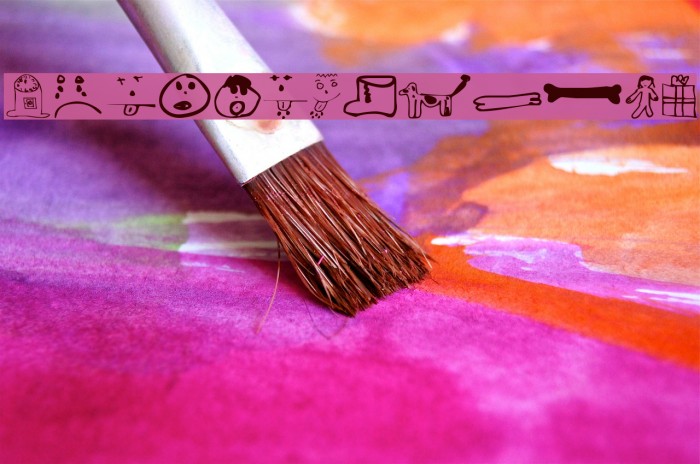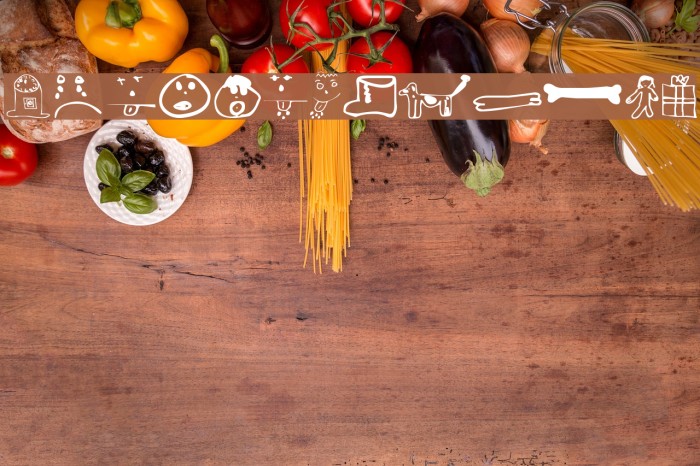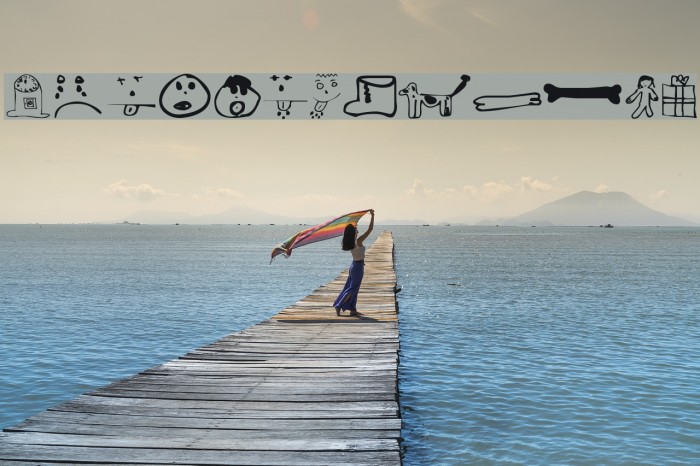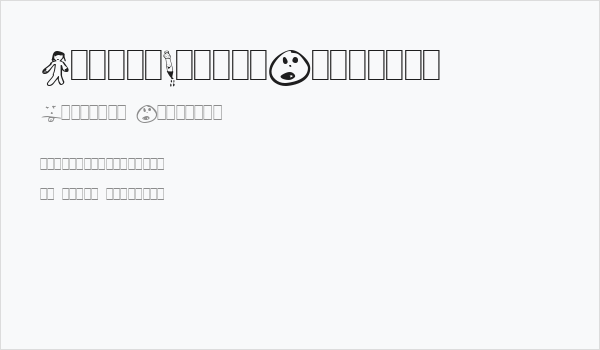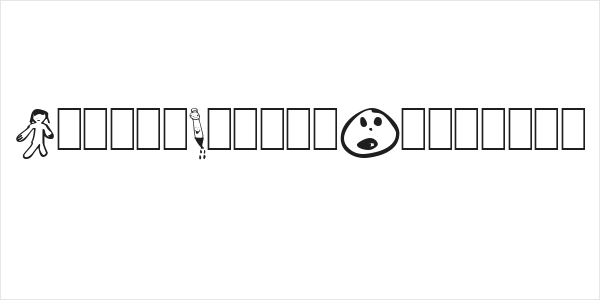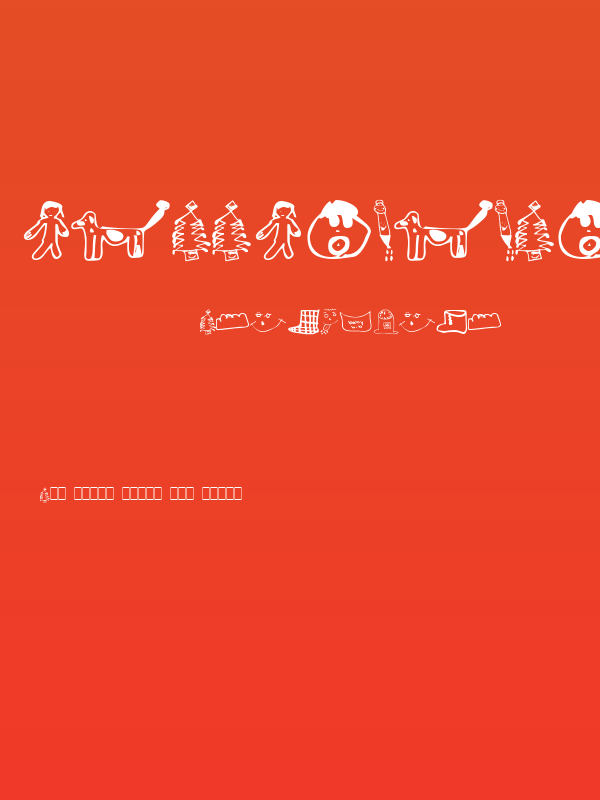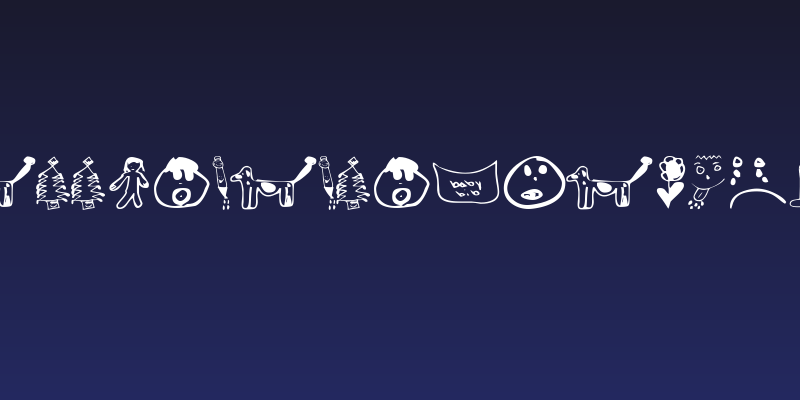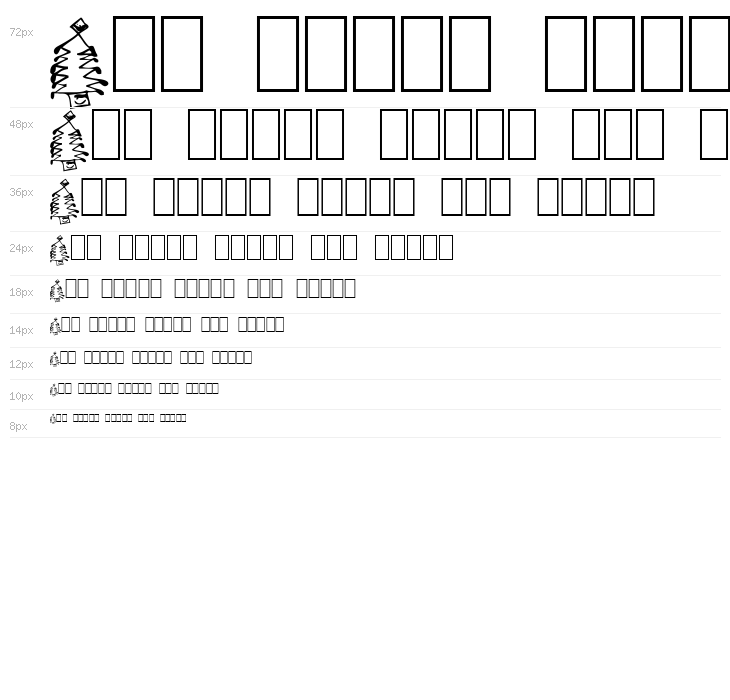
LittleSisterDingbats Font
LittleSisterDingbats Description
This collection of whimsical dingbats features a variety of playful and quirky illustrations. Each character is a unique drawing, ranging from simple faces to more detailed objects like a dog, a boot, and a gift box. The style is hand-drawn, giving it a personal and informal feel. These illustrations are perfect for adding a touch of fun and creativity to any project. The characters are not uniform in size or style, which adds to their charm and individuality. This set is ideal for creative projects that require a light-hearted and artistic touch.
| Overall Style | Whimsical, Artistic |
| Use Case | Decorative elements, Illustrations, Creative projects |
| Proposed Projects | Ideal for children's books, greeting cards, playful branding, and creative art projects. |